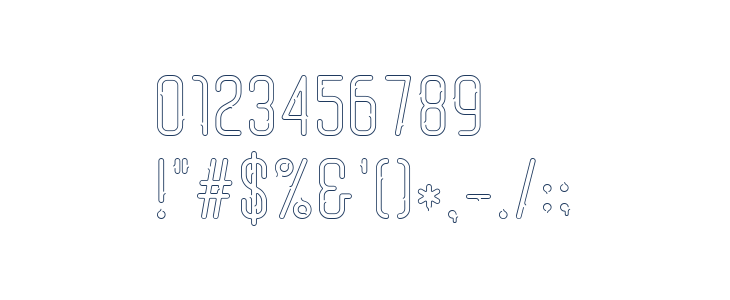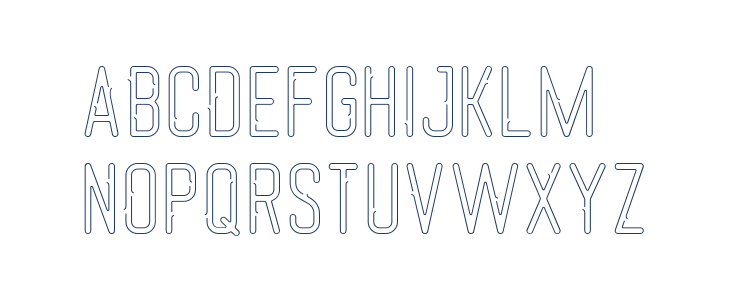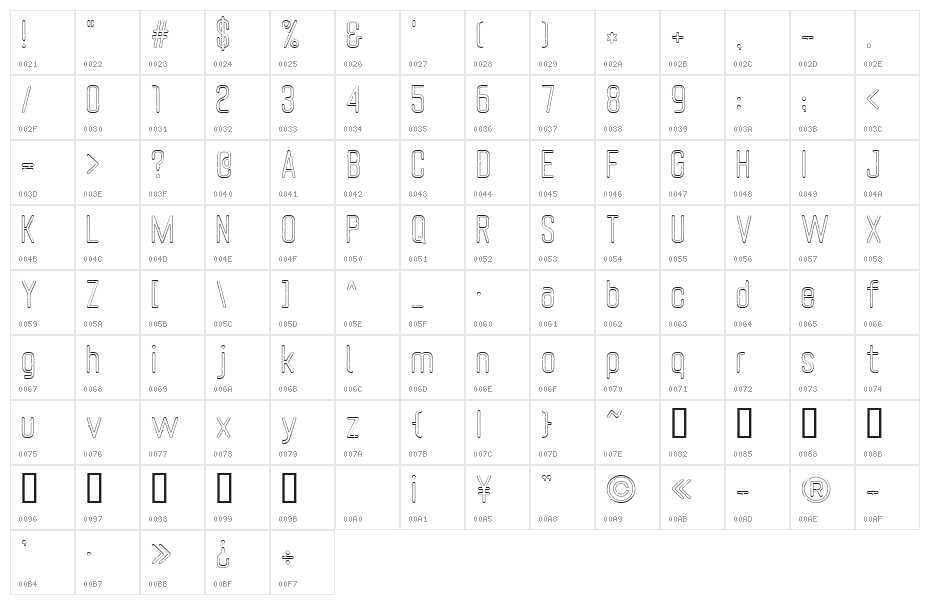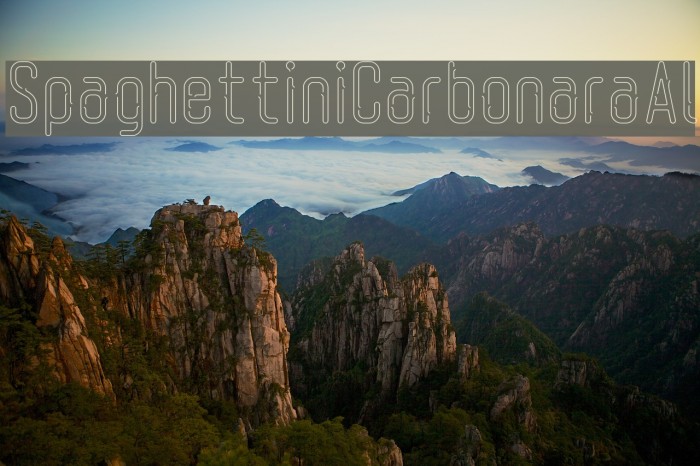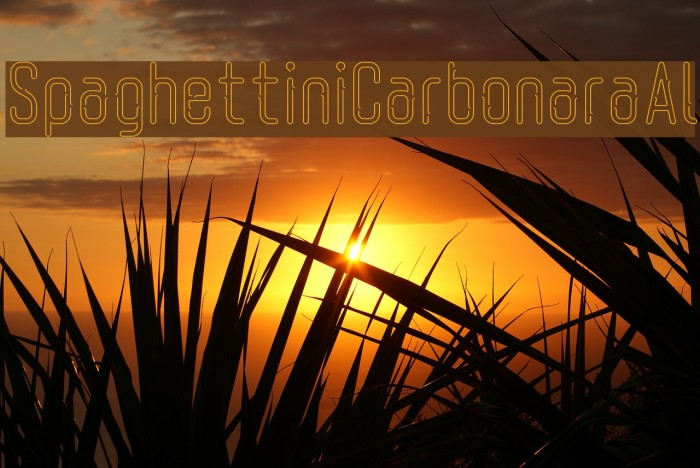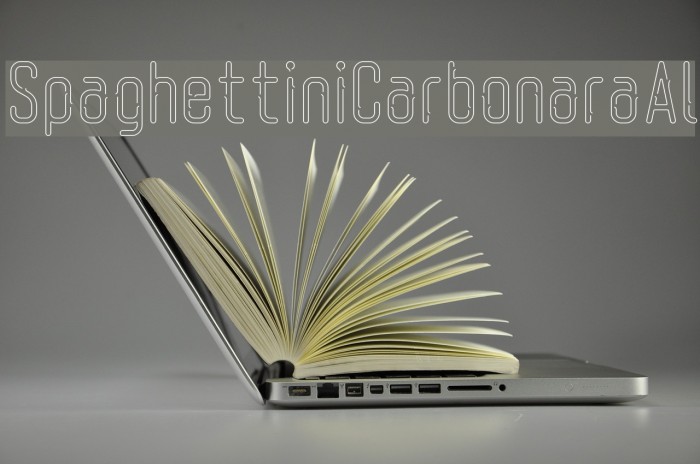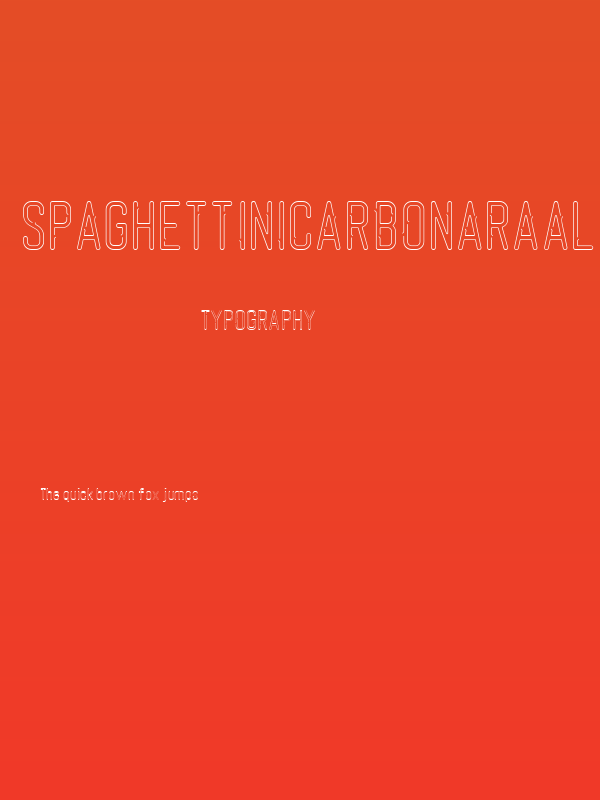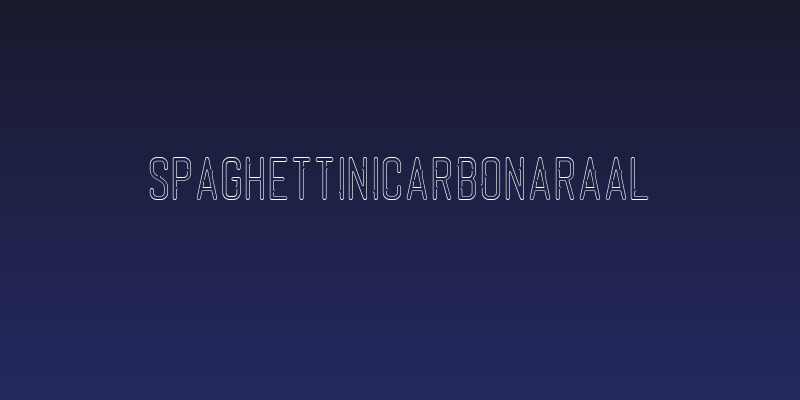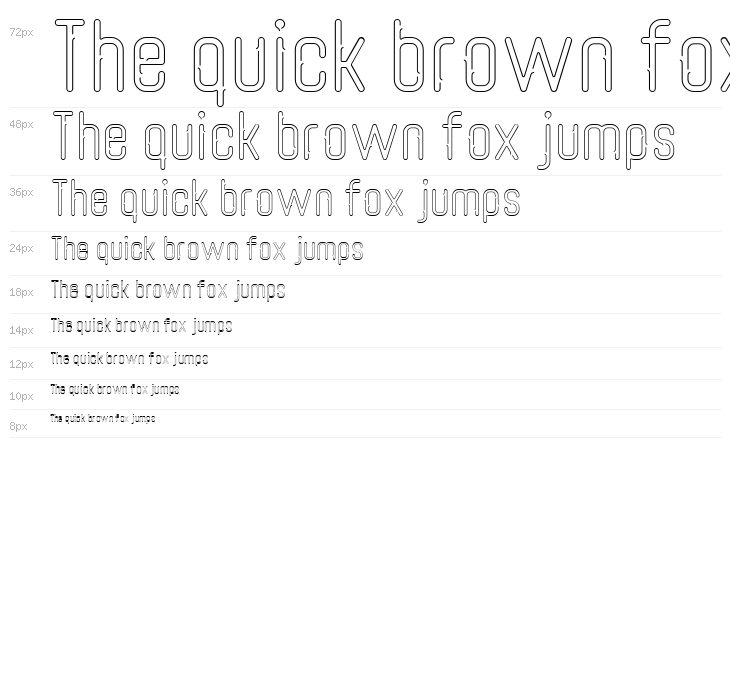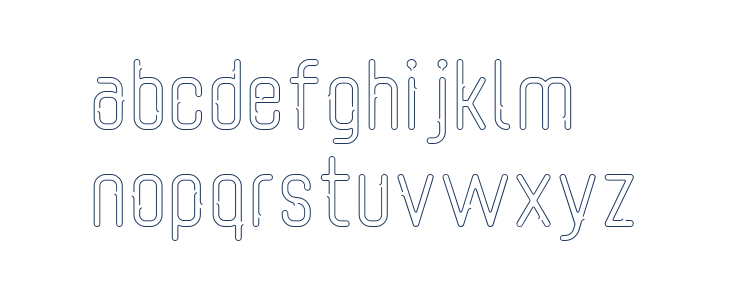
SpaghettiniCarbonaraAl Font
SpaghettiniCarbonaraAl Description
This font features a modern, geometric design with clean lines and a hollow, outlined appearance. Each character is constructed with uniform stroke widths, creating a cohesive and minimalist aesthetic. The uppercase and lowercase letters maintain a consistent style, with rounded edges and a slight industrial feel. The numerals and special characters are designed to match the overall look, ensuring versatility across various applications. The font's open structure and clear legibility make it suitable for both digital and print media.
Proposed ProjectsIdeal for branding, posters, digital media, and modern design projects requiring a clean, minimalist look.